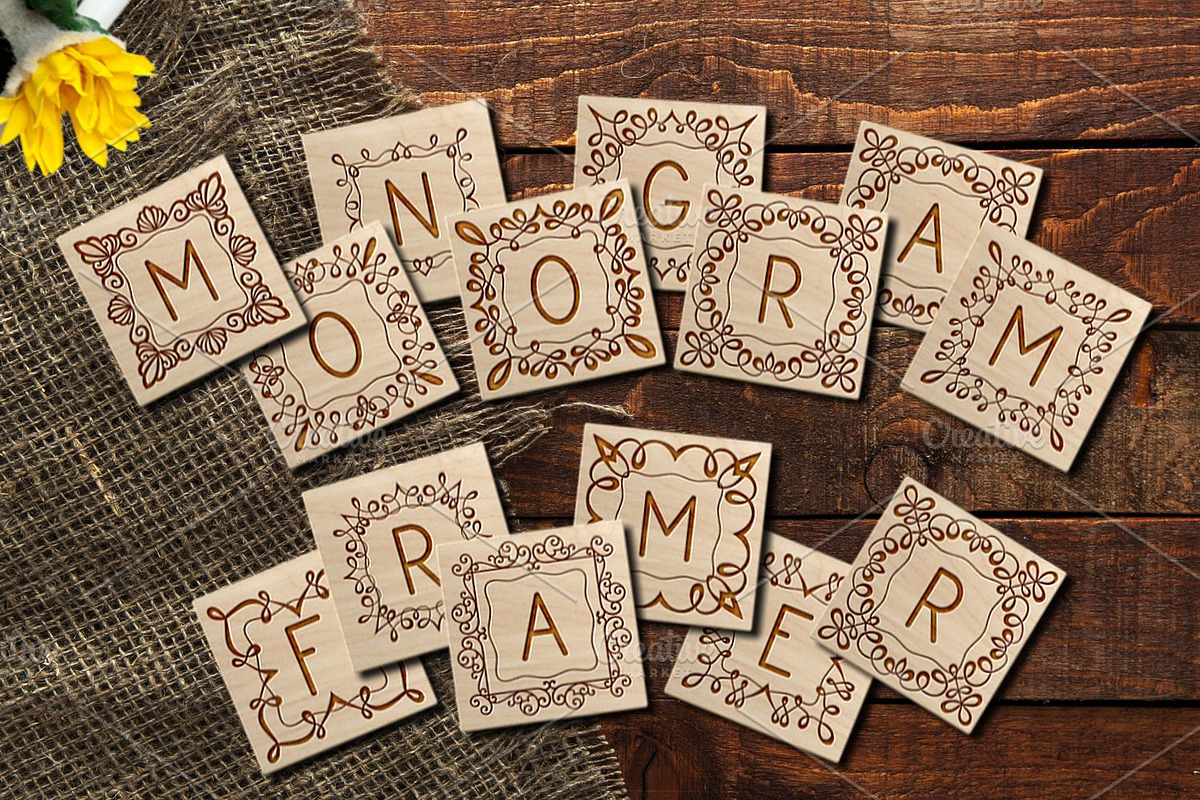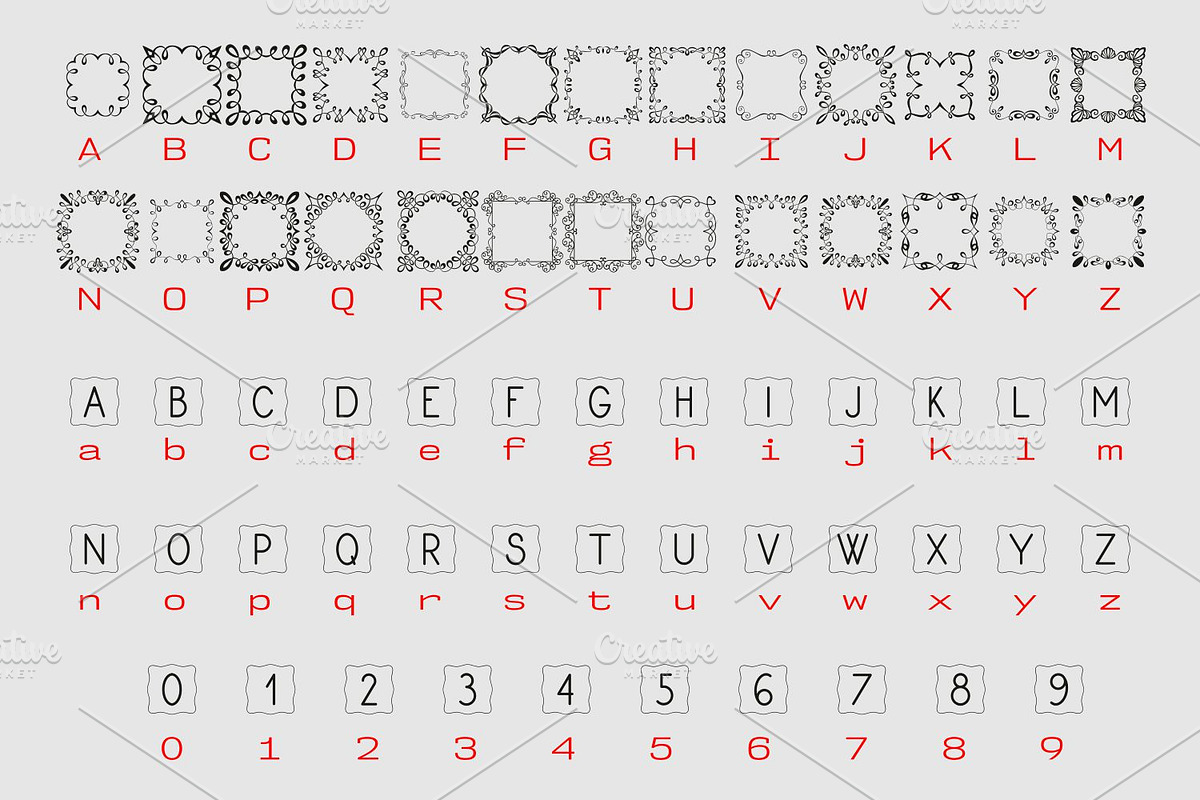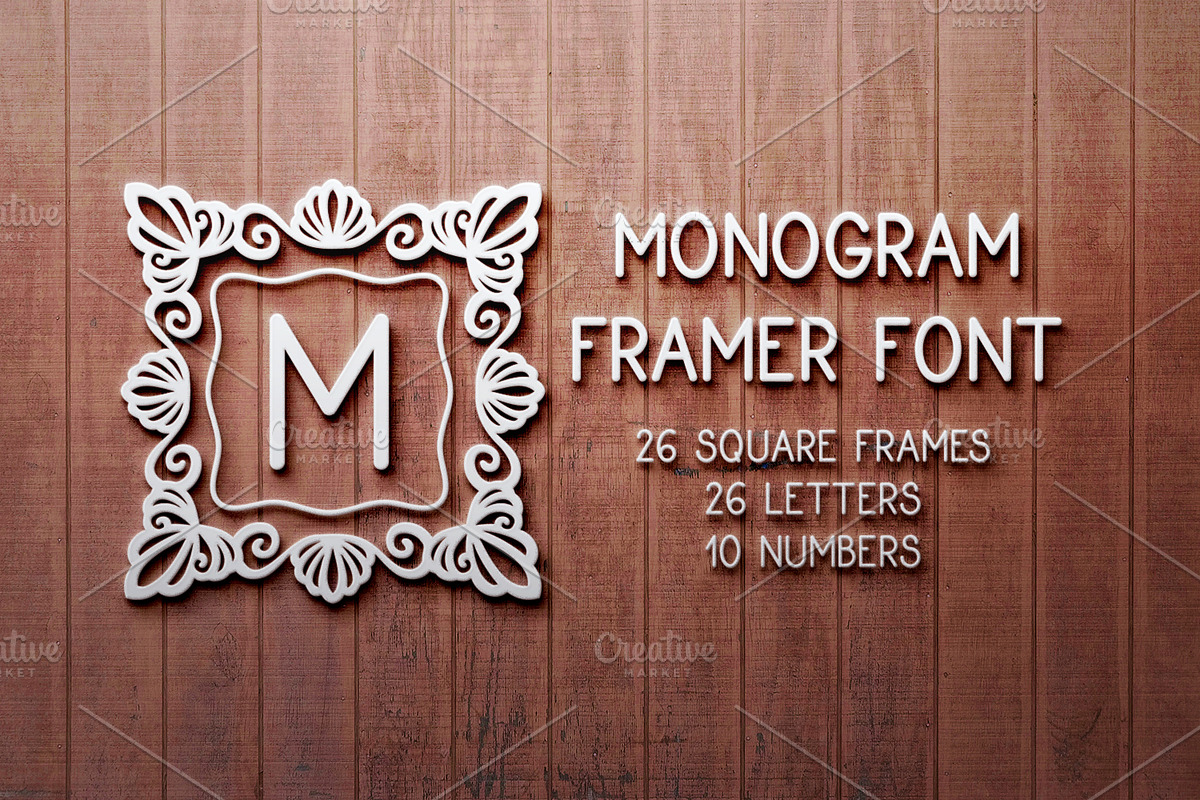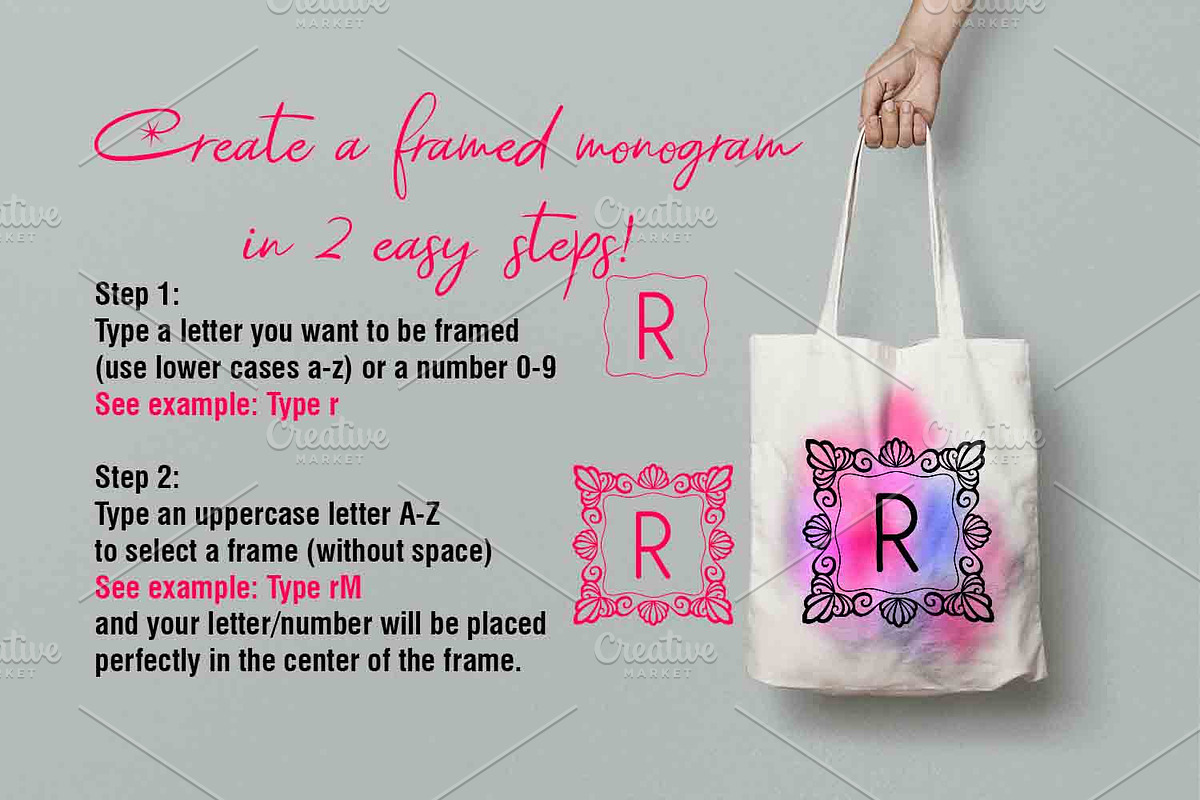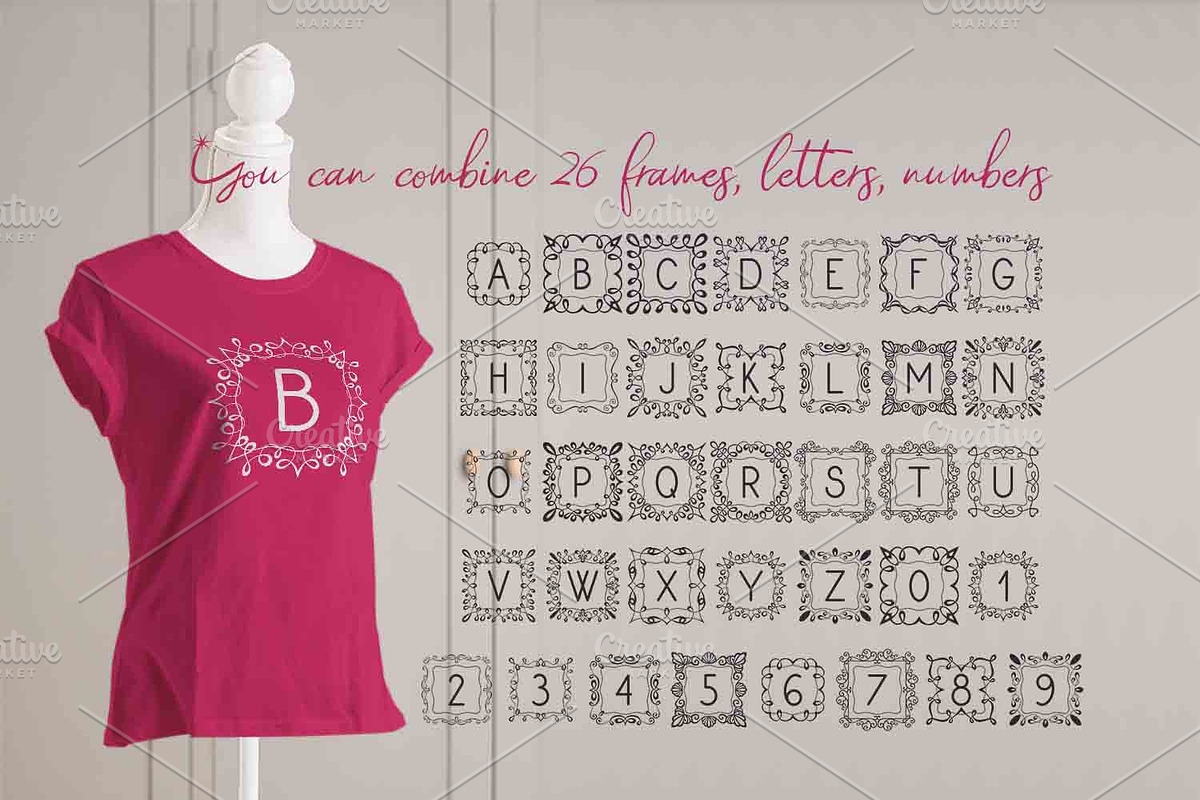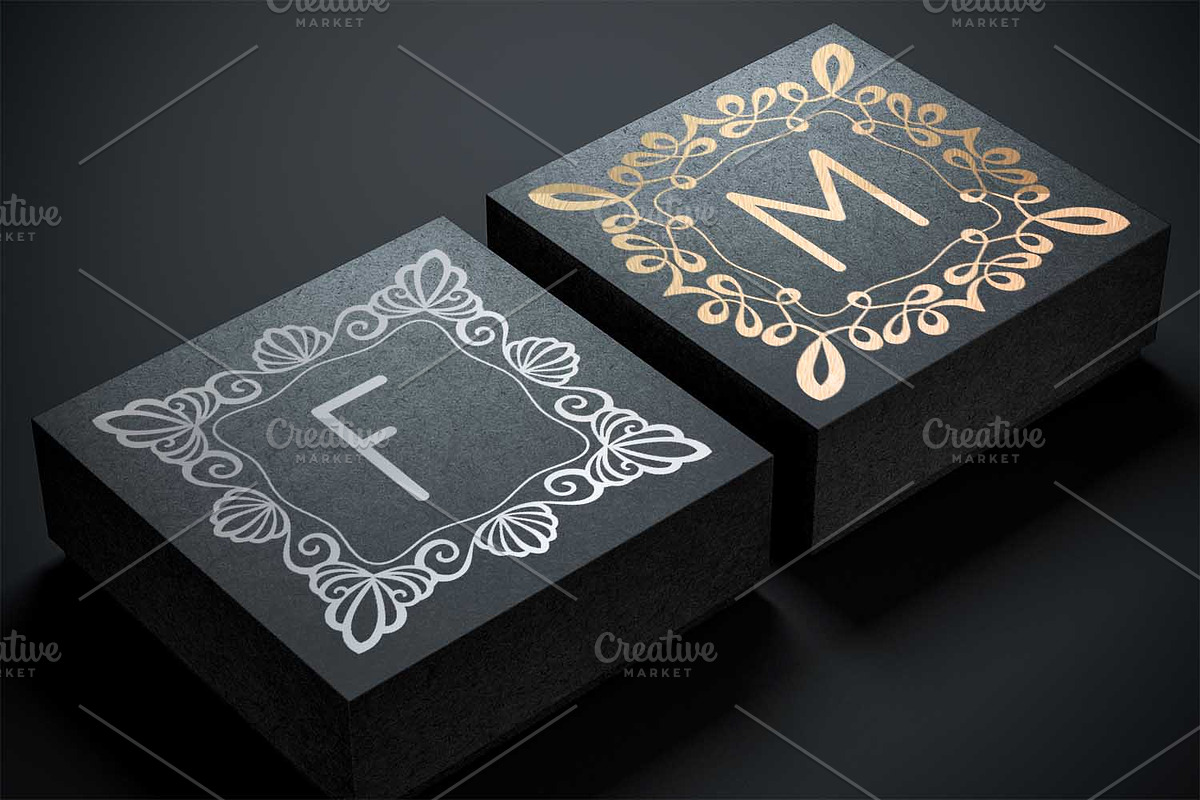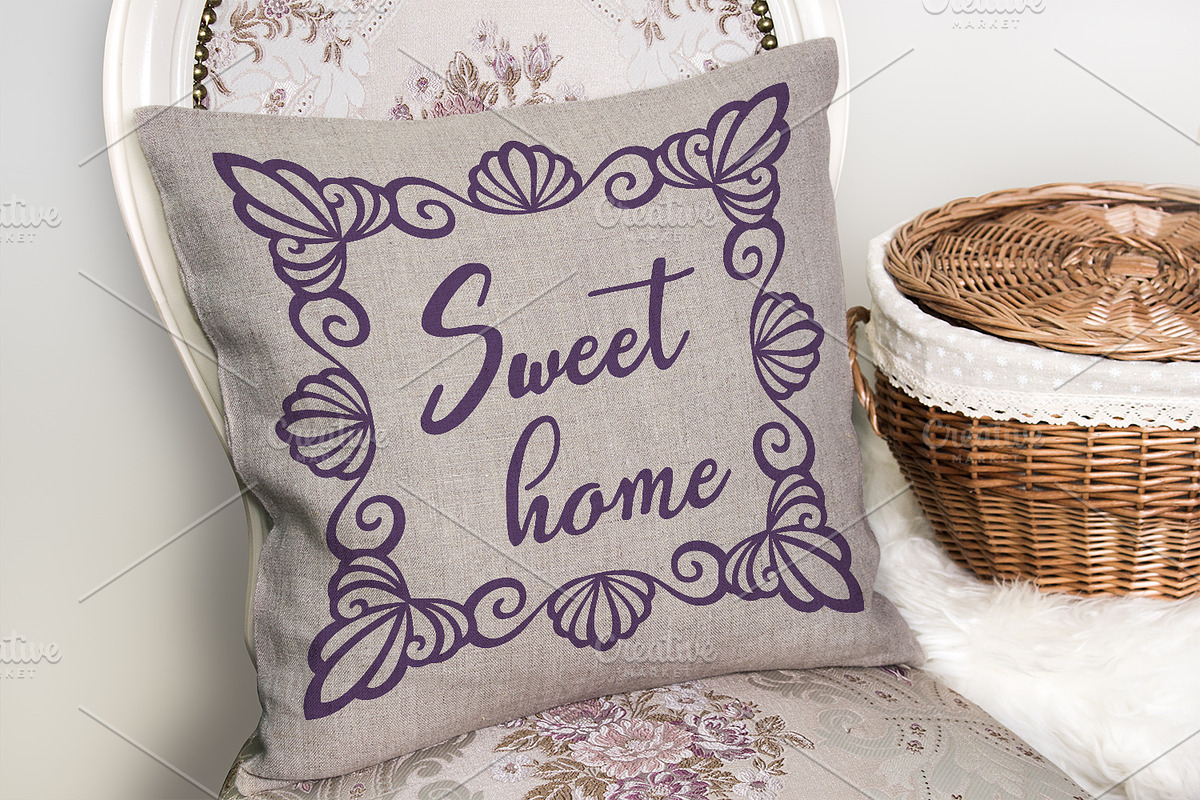
Framed monograms
Character set are lower case letters a-z, numbers 0-9, and 26 square frames (keys uppercase A-Z) as it is shown in the example
With this font you’ll be able to create a square framed monogram in just 2 easy steps!